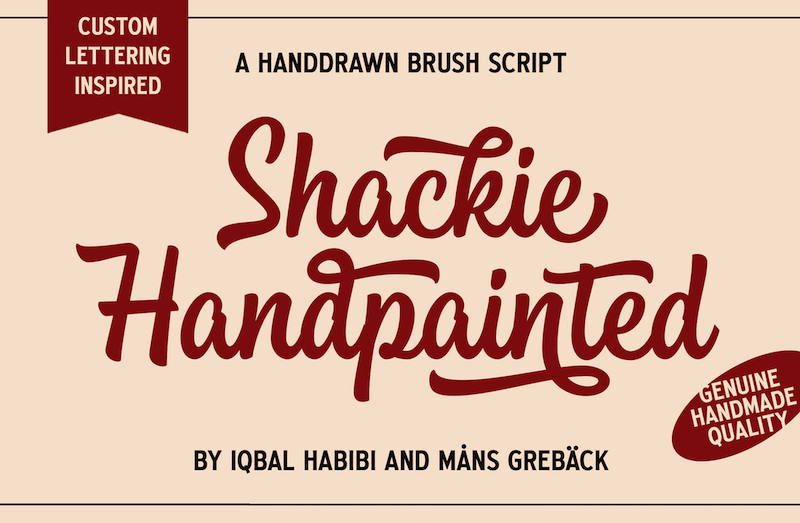
Font name: | Shackie Handpainted |
NOTE: This font is for PERSONAL USE ONLY! To purchase a commercial license, visit: http://mn.sg/shackie-handpainted Shackie Handpainted is a striking calligraphy typeface, embodying the charm and flair of a hand-drawn script. The font's dynamic brushstrokes lend it the authentic feel of a sign painter's masterpiece, making it an excellent choice for projects that call for custom lettering and a personal touch. For questions, please visit www.mansgreback.com/faq |